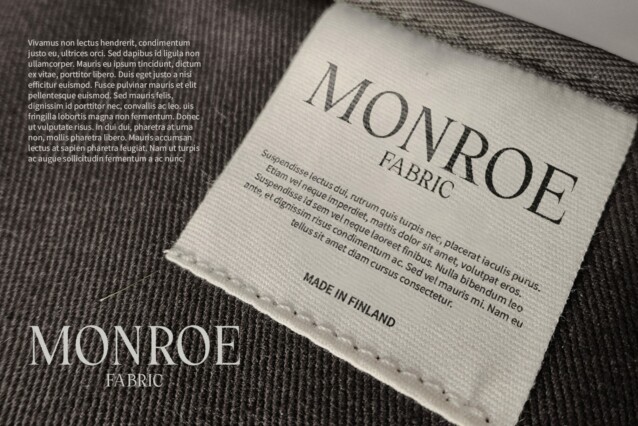
Catelyn Rough Font
Catelyn Rough Font is a modern serif font that beautifully balances elegance with a rugged vibe. Perfect for creating eye-catching displays, this font adds a sophisticated yet bold touch to your designs.
Modern Serif with a Rough Twist
With its elegant serif design and rough texture, Catelyn Rough offers a unique and captivating twist on traditional serif fonts. The blend of refined lines and rugged edges creates a visually striking and dynamic look, ideal for posters, invitations, and other projects that need a touch of sophistication and strength.